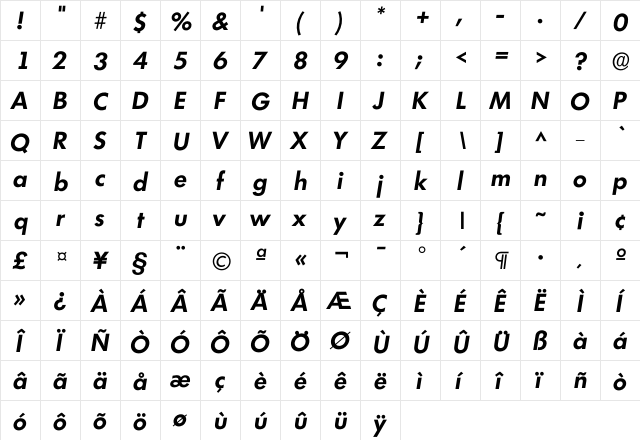
Ilimerick DemiBold
Design Context for Ilimerick Typeface
Ilimerick is a composed and adaptable typeface that performs quietly and consistently across a wide range of design contexts. The heavy weight commands attention and anchors typographic hierarchies.
Pro Tip: Pair Ilimerick with a font of contrasting weight or personality to build a more expressive typographic hierarchy.